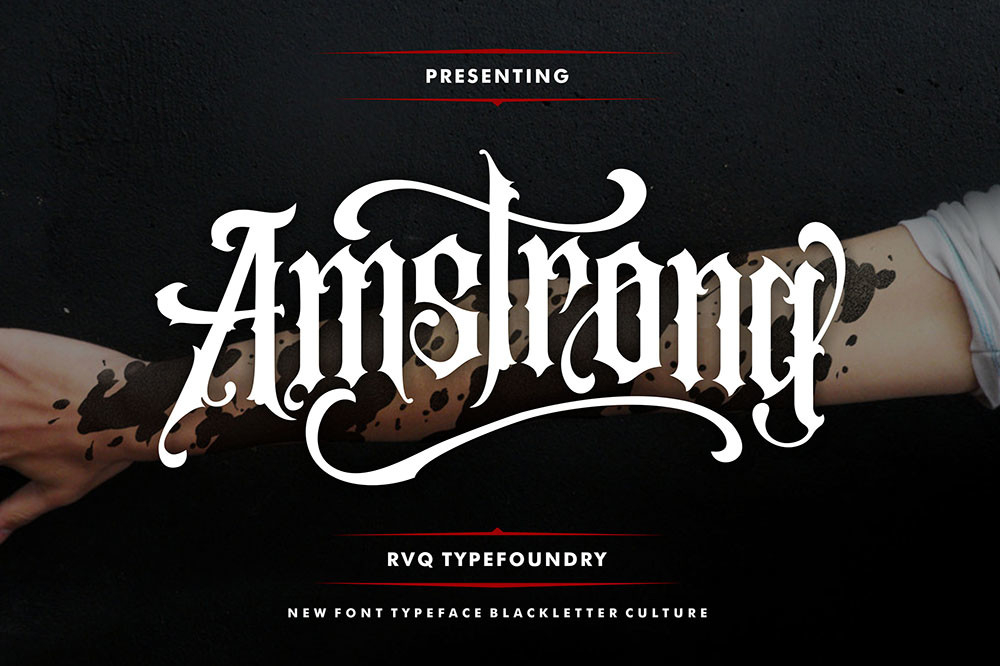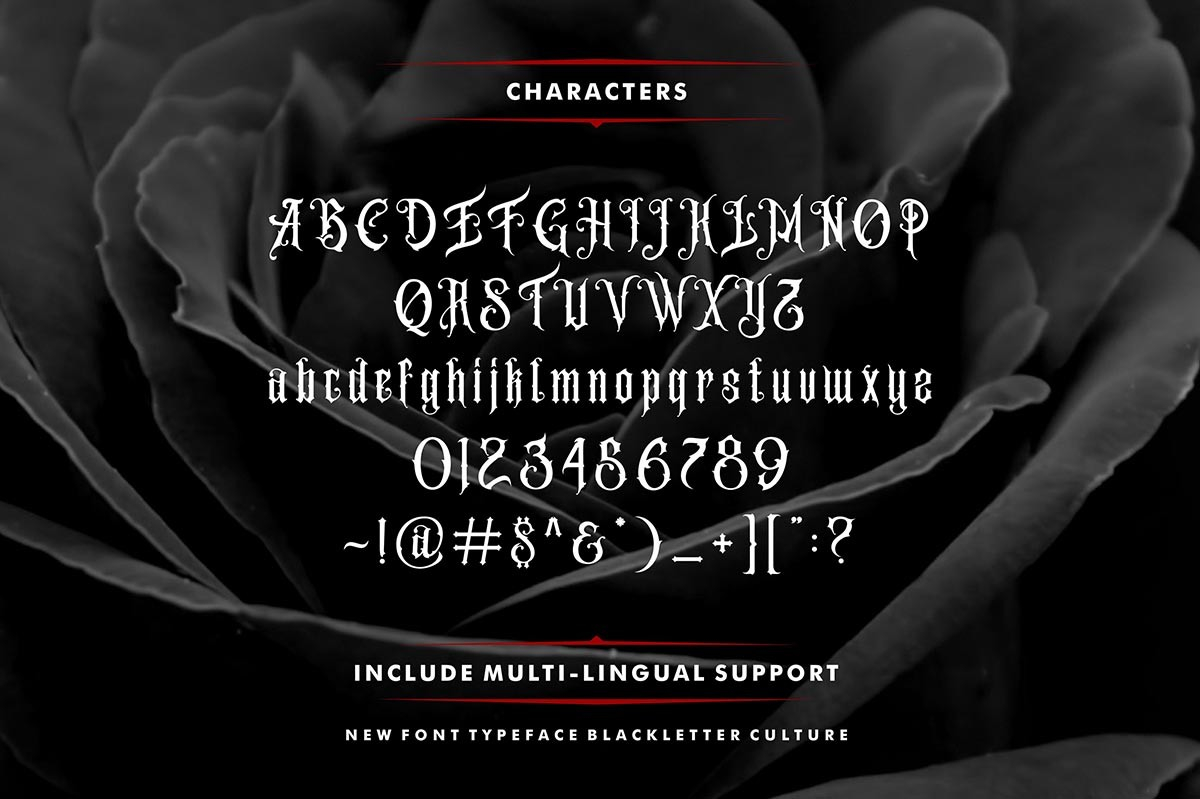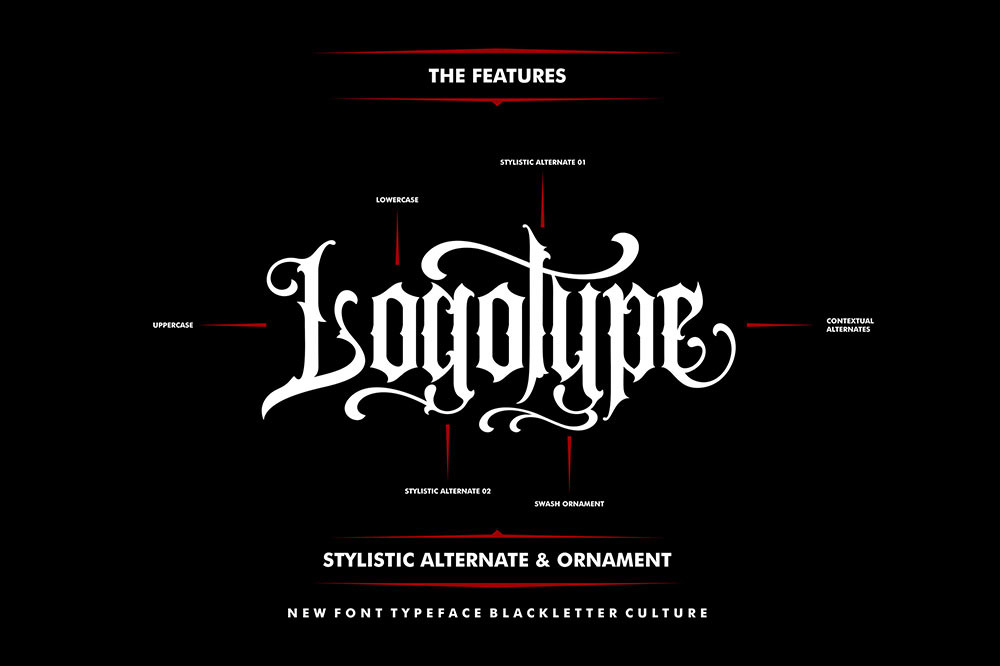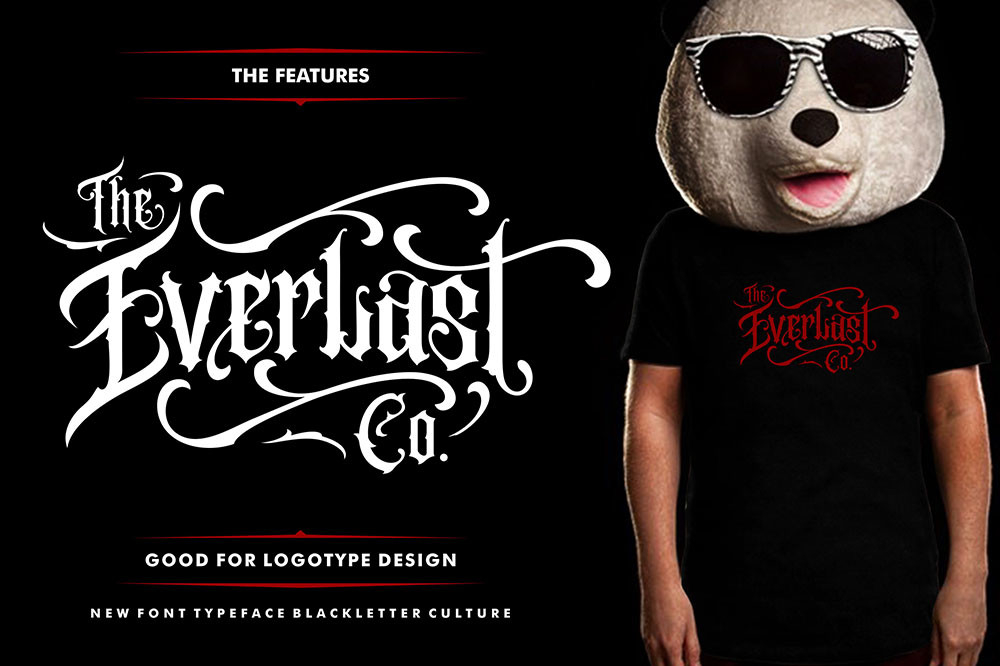
Amstrong Font
About Amstrong Font
Amstrong is a new typeface with a classy, elegant, and vintage feel character set. To create a beautiful combination, just mix the uppercase and lowercase then mix them with the alternative glyphs. Add it confidently to your projects, and you will be speechless with the results. This font is PUA encoded which means you can access all glyphs and swashes effortlessly!